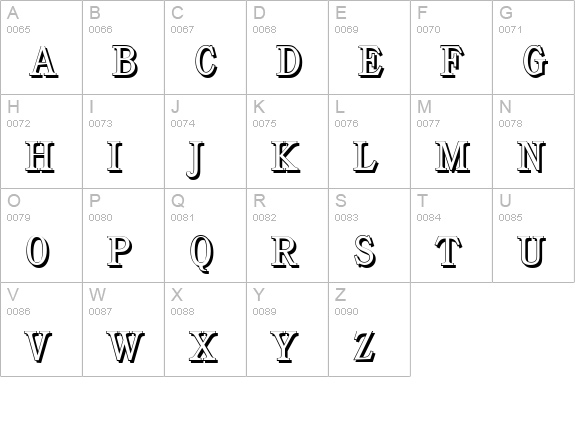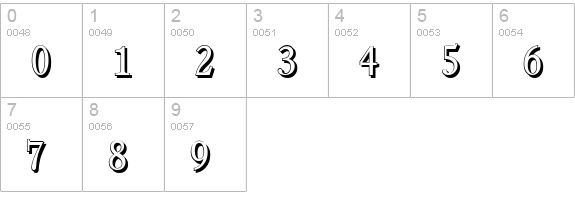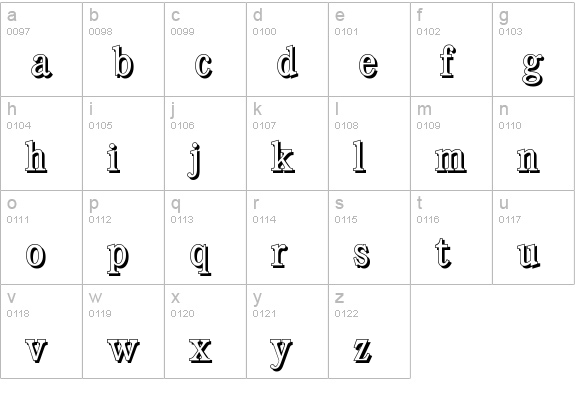
CalgaryShadow-Light-Regular is a refined, elegant variant in the CalgaryShadow typeface family \xE2\x80\x94 well suited to elegant body text, refined sub-headings, and luxury branding.
CalgaryShadow-Light-Regular font is a modern and versatile typeface that combines elegance with a touch of playfulness. The delicate shadows and light strokes create a unique visual impact, making it perfect for a wide range of design projects. This font exudes a sense of sophistication and style, while maintaining a sense of approachability. What makes CalgaryShadow-Light-Regular even more appealing is that it is available for free download at FontsMarket.com. This means that you can easily access this beautiful font and use it in your personal and commercial projects without any cost. Add a touch of class to your designs with CalgaryShadow-Light-Regular font today!